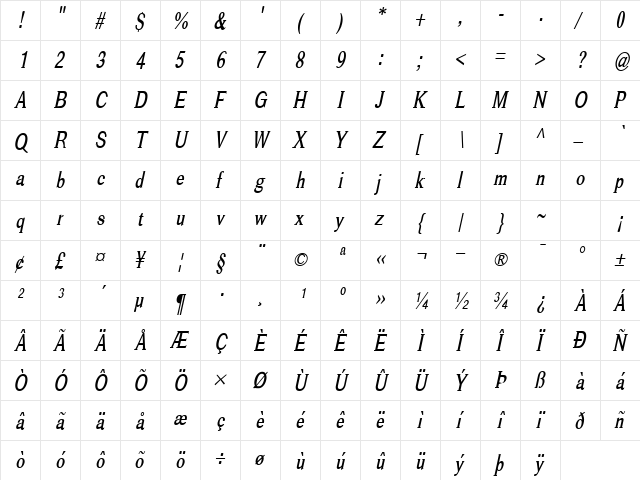
Cheetah Italic
Design Context for Cheetah Typeface
Cheetah offers clean, dependable letterforms without strong stylistic allegiance, making it a practical choice for designers who need flexibility. The slanted form adds forward momentum and visual energy.
Pro Tip: Try Cheetah for annotation and caption copy alongside an upright companion — the contrast in angle creates a dynamic but ordered typographic system.